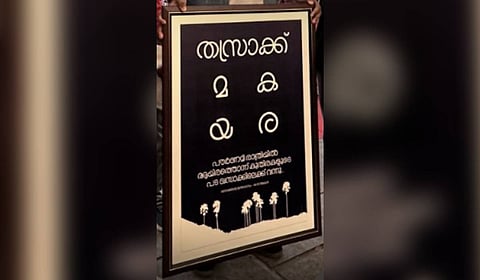
‘Thasrak’, a font that draws its essence from Khasakkinte Itihasam
On the sands of Kozhikode Beach, where words and ideas have been converging at the Kerala Literature Festival, marketing content tool Burfy app unveiled ‘Thasrak’, a Malayalam font inspired by O V Vijayan’s timeless universe.
KOZHIKODE: More than five decades after ‘Khasakkinte Itihasam’ altered the course of Malayalam literature, the spirit of Khasak has found new life with the support of modern technology. On the sands of Kozhikode Beach, where words and ideas have been converging at the Kerala Literature Festival, marketing content tool Burfy app unveiled ‘Thasrak’, a Malayalam font inspired by O V Vijayan’s timeless universe.
Drawing inspiration from Thasrak, the Palakkad village that forms the backdrop of Khasakkinte Itihasam, the font seeks to translate the novel’s earthy cadence and philosophical depth into a contemporary typographic form.
The launch was jointly inaugurated by calligraphy artist Narayanan Bhattathiri, brand communication expert Favour Francis and writer and screenwriter Jamal Kochangadi, in the presence of writers, designers, students and cultural practitioners.
Designed for the digital-first generation, Thasrak aims to empower writers and social media creators to express ideas with visual grace while retaining linguistic authenticity. The font balances aesthetic elegance with readability, making it suitable for visually compelling posters as well as long-form Malayalam content, a rare combination in digital typography.
“Typography is not just about letters, it is about the rhythm of language,” said Narayanan. “Thasrak carries a tactile, lived-in quality that echoes the spirit of Vijayan’s world, while still speaking fluently to today’s screens.”
Burfy has also positioned the font as a tool for learning and creativity among school and college students. Its features are crafted to help students showcase ideas visually, develop creative skills and adapt to the evolving demands of the digital ecosystem, without losing touch with the language’s roots.
Imthiyas Peruvan, the Malappuram-based founder of the app, said the launch marks a step towards a broader typographic movement. “O V Vijayan’s work reshaped Malayalam literature by daring to be different. A font inspired by Khasak is a reminder that innovation in language must remain fearless even in the digital age,” he said.
“Thasrak reflects our belief that Malayalam typography can be concept-driven and contemporary without sacrificing soul,” he said. “Our goal is to spark a new revolution in how Malayalam is written, read and shared online.” Francis emphasised the relevance of such initiatives in today’s content-saturated world. “Fonts are cultural carriers,” he said, adding, “When thoughtfully designed, they become storytellers. Thasrak does exactly that.”